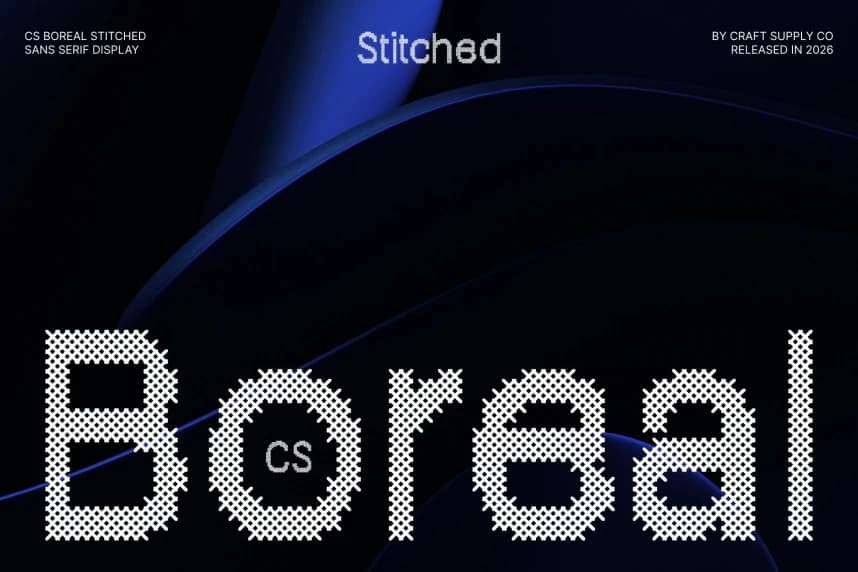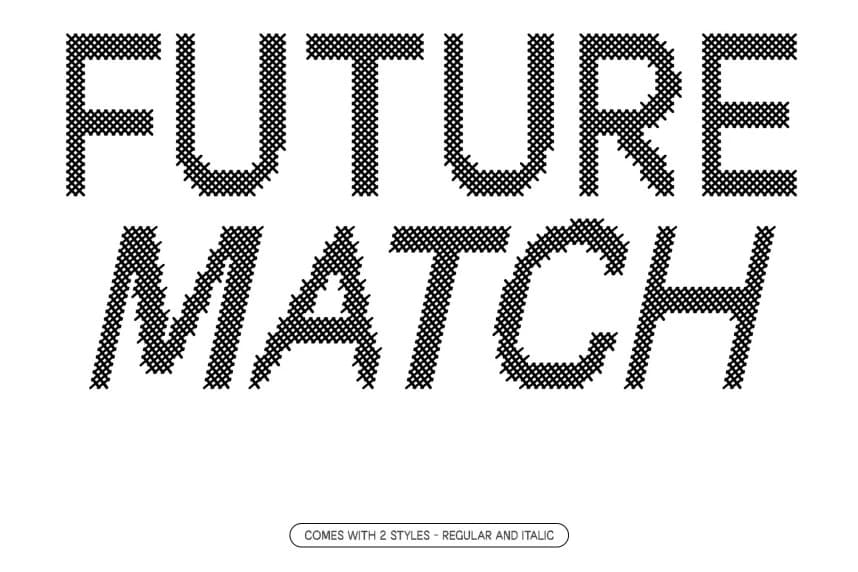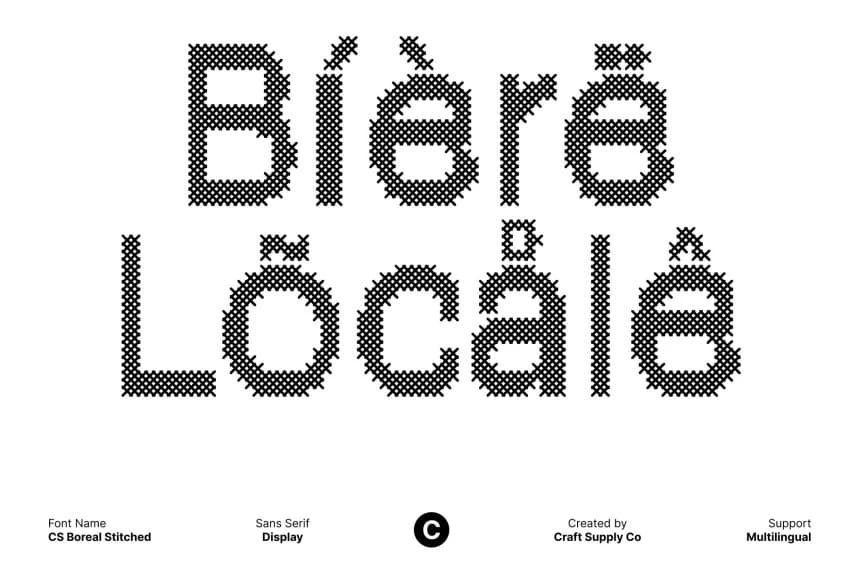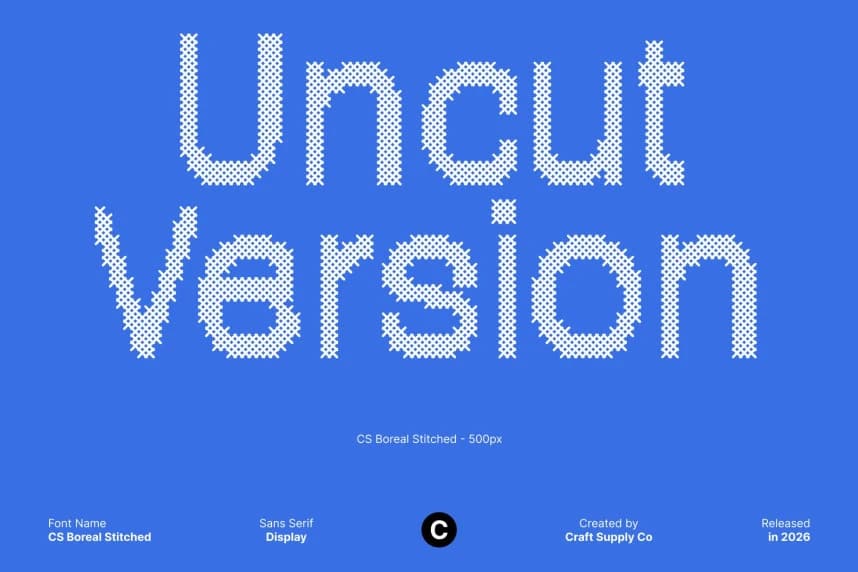
CS Boreal Stitched Font
CS Boreal Stitched Font – Modern Sans Serif with Fresh Quirky Character Clean Sans Serif with Handcrafted Texture. This is a modern sans serif font that blends clean construction with quirky, distinctive shapes.